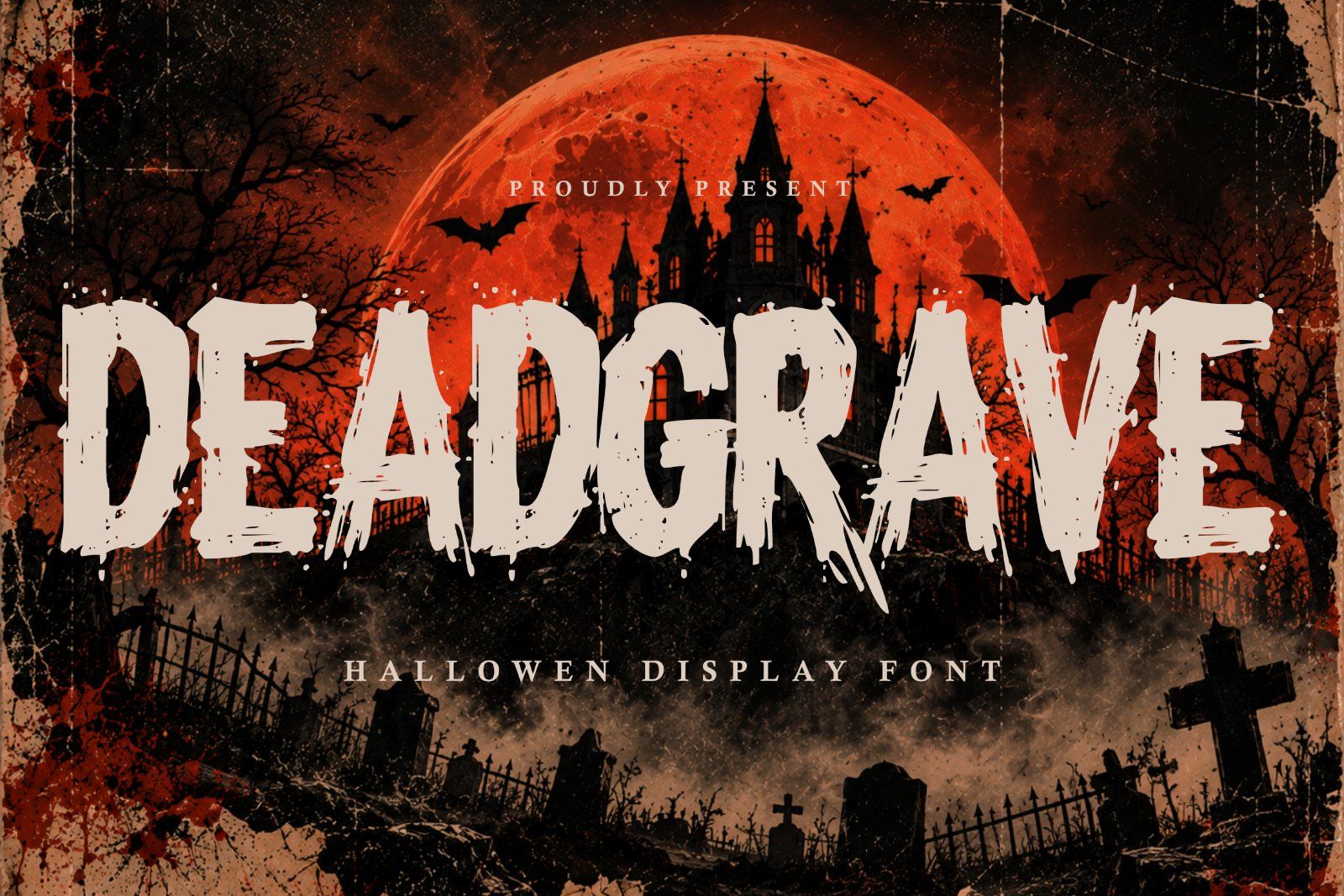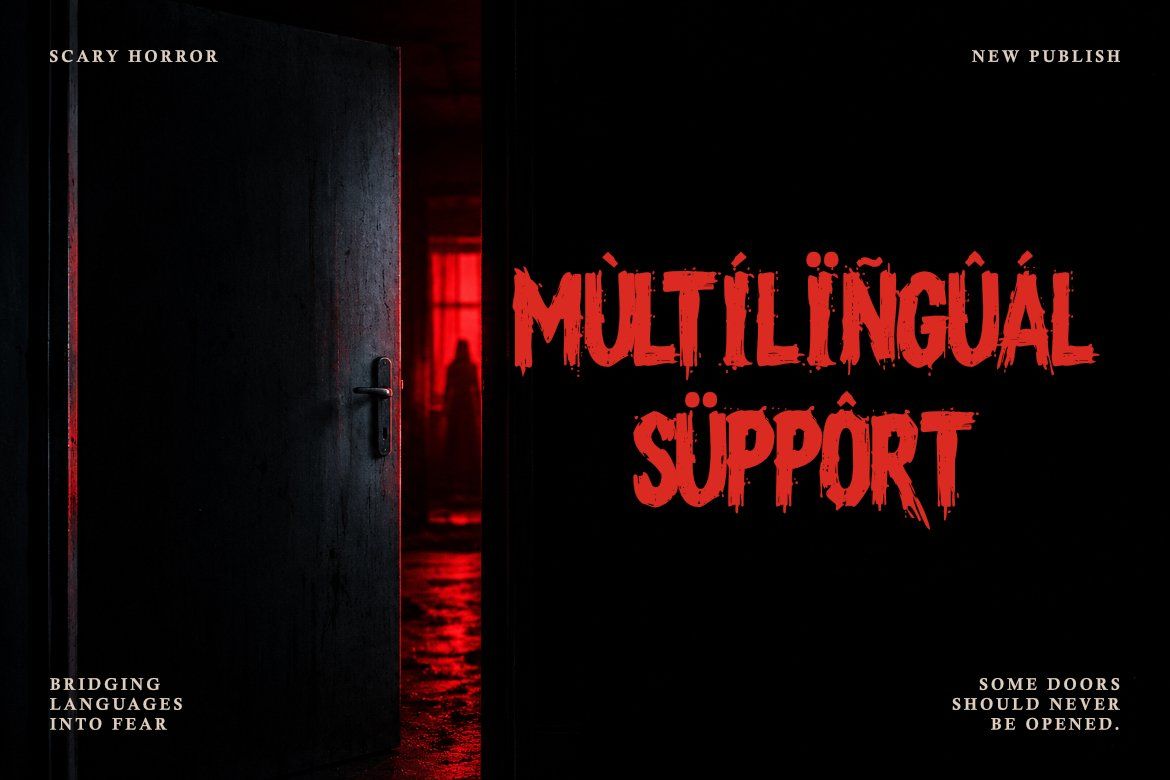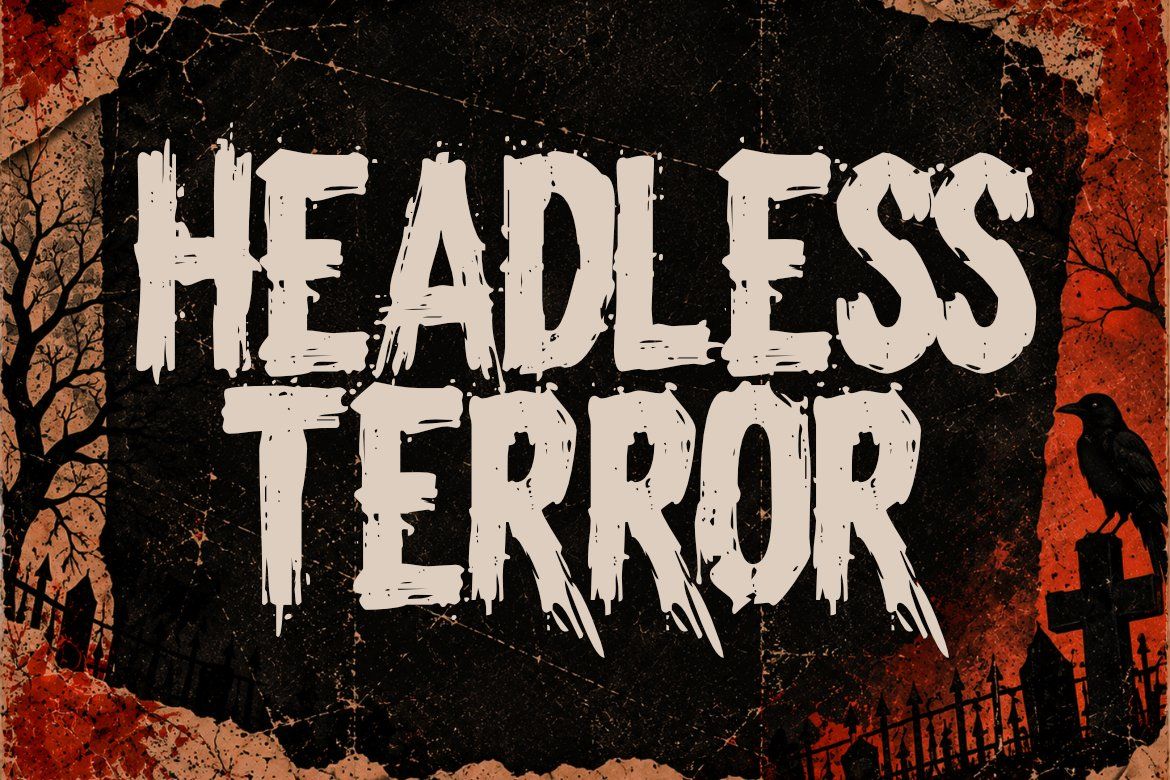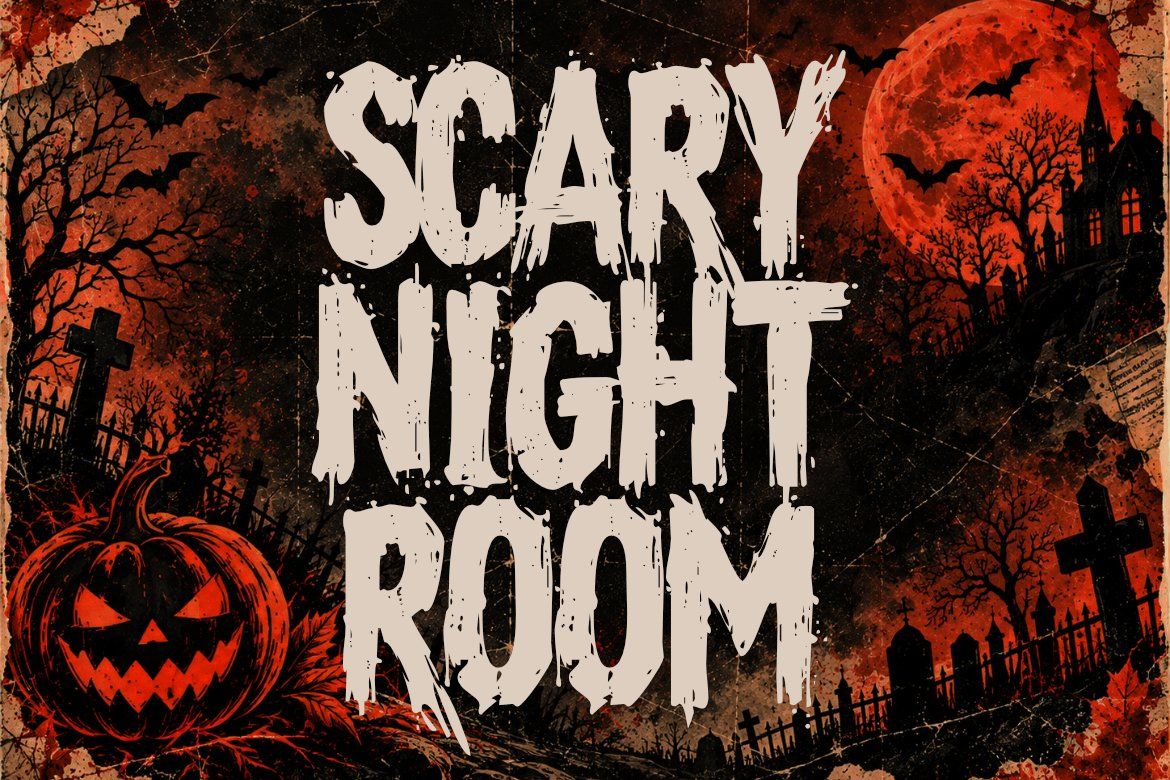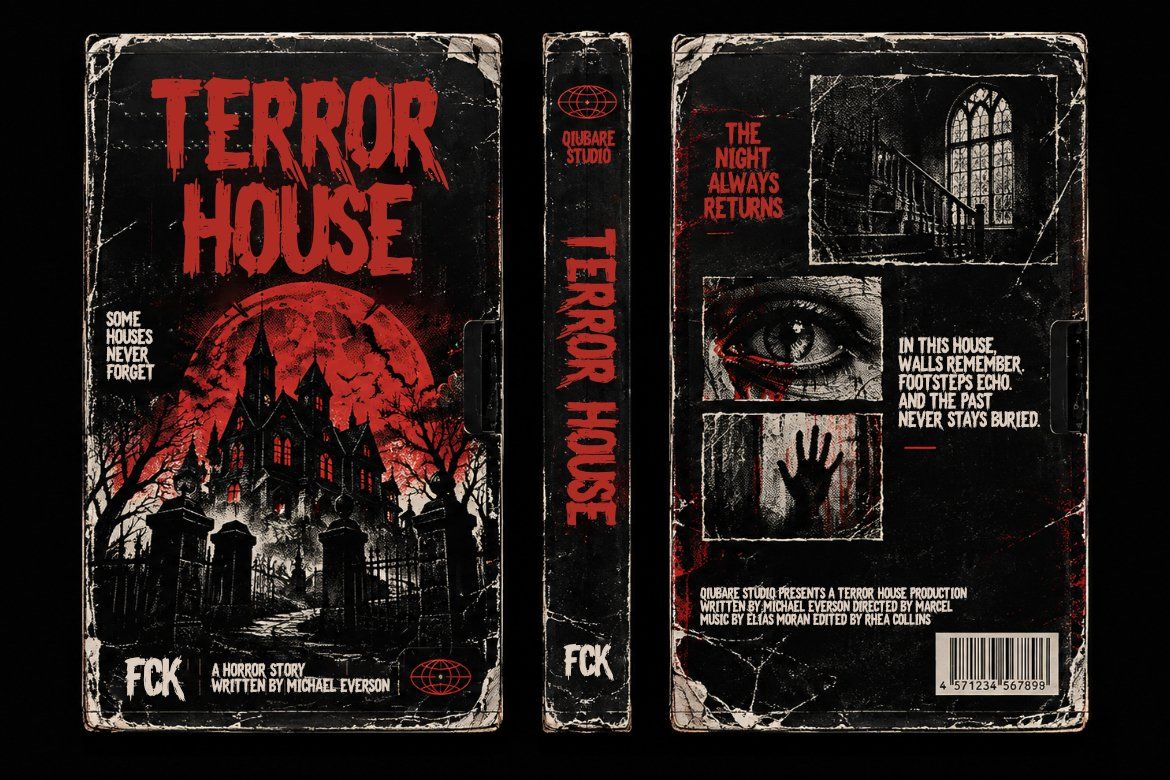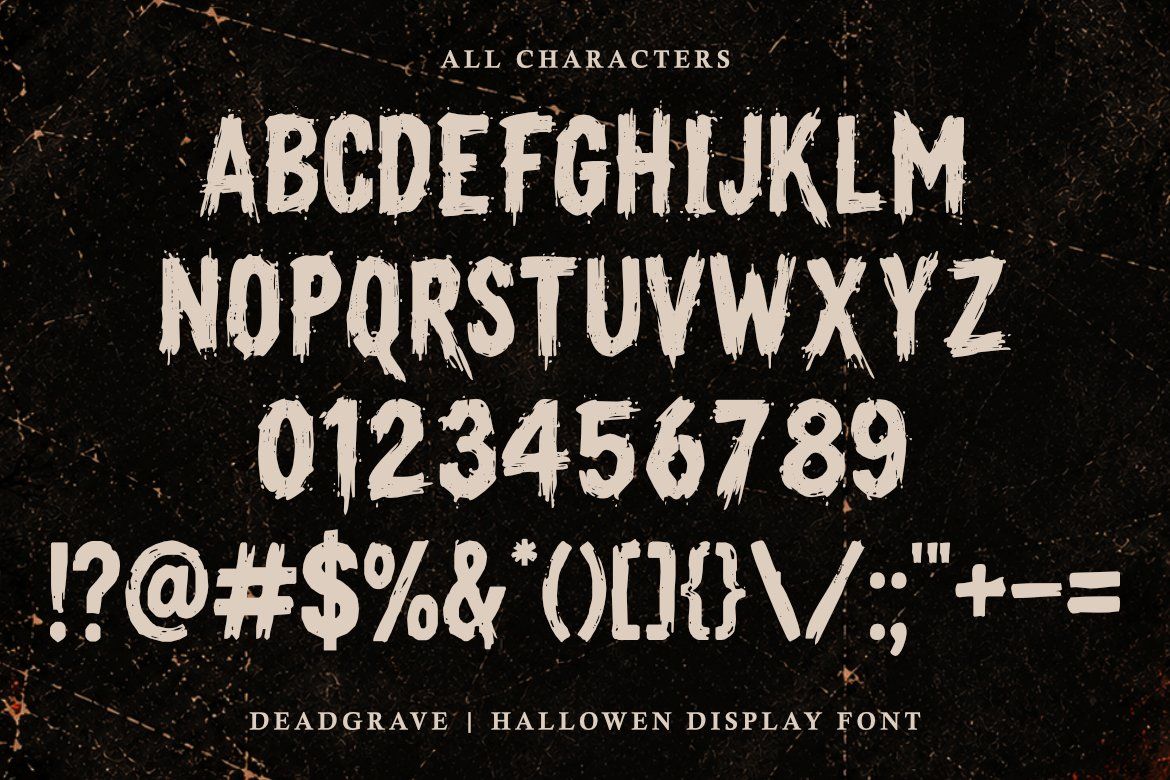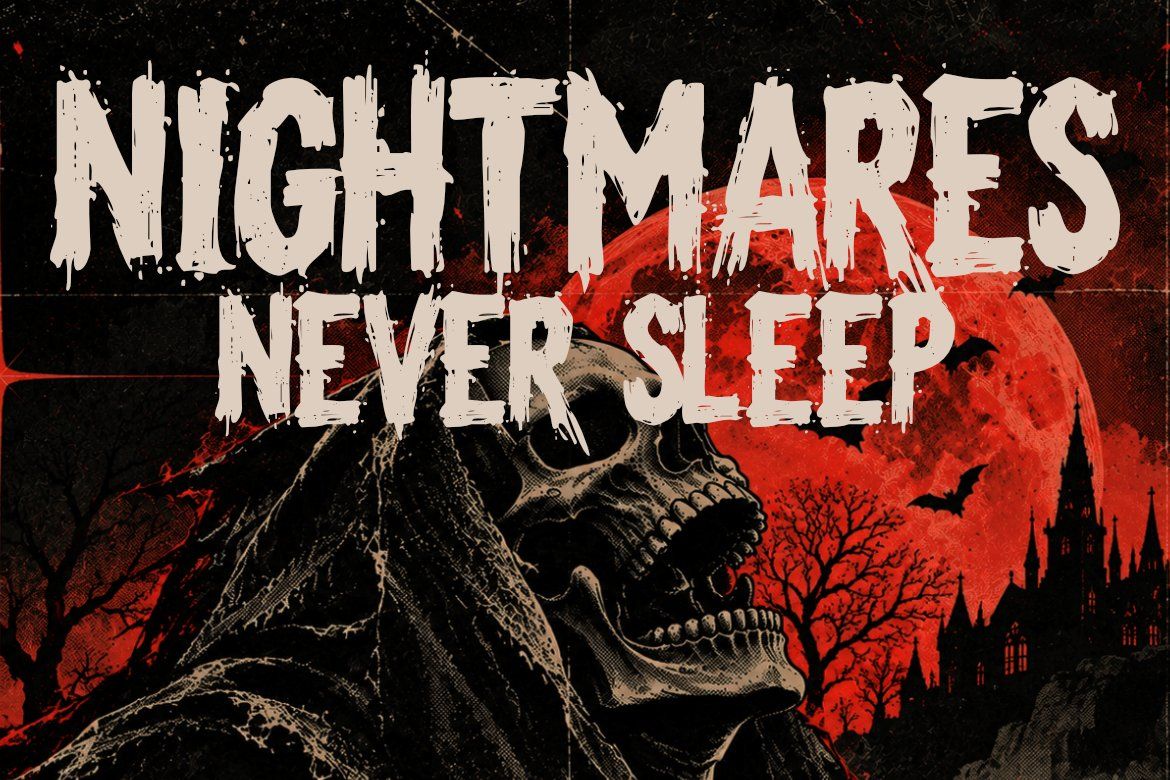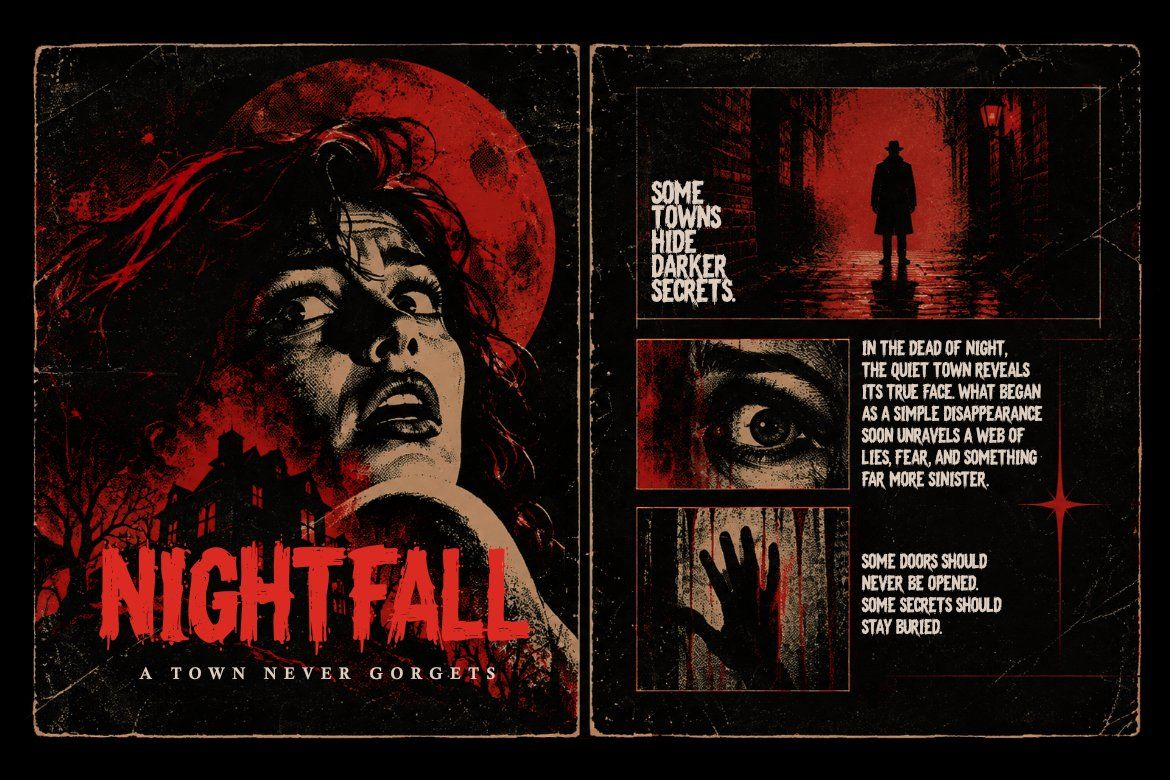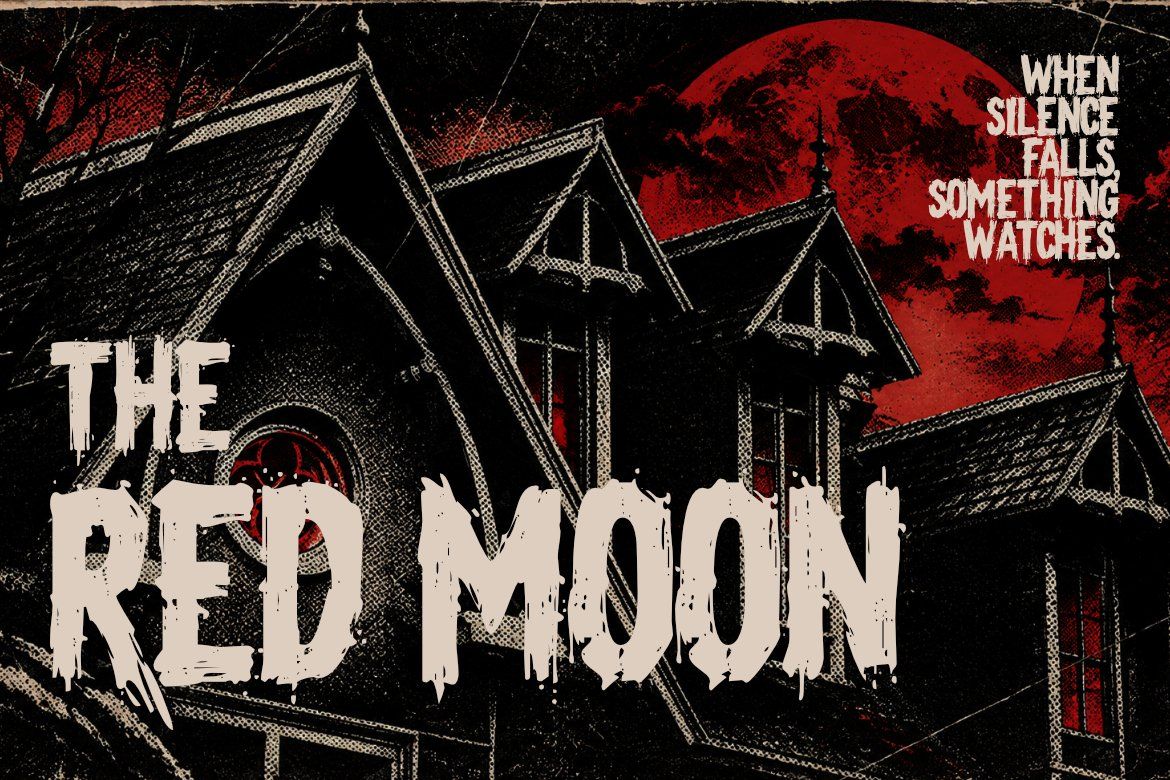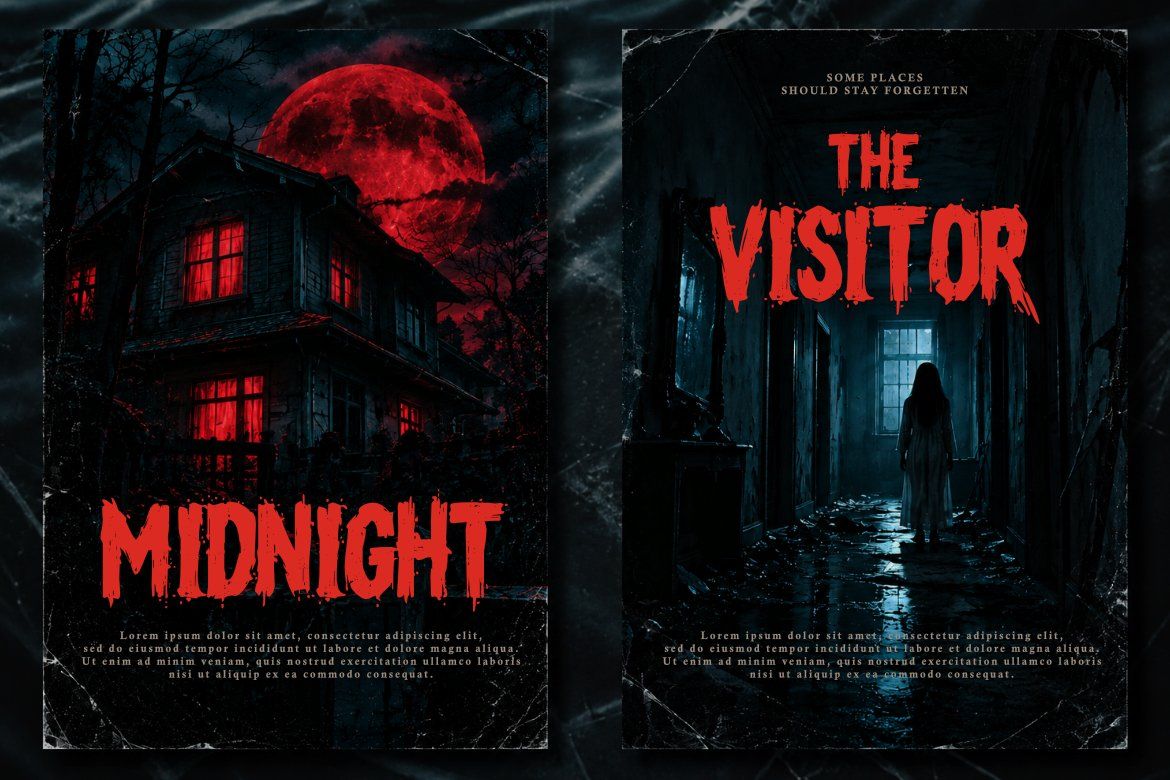
Horror font DEADGRAVE is a distressed display typeface with rough edges, irregular shapes, and a raw hand-painted character. Designed for Halloween graphics, horror posters, movie titles, merchandise, and dark display typography, it brings an unsettling atmosphere to bold creative projects.
Inspired by classic horror posters, haunted houses, Halloween nights, and vintage thriller graphics, DEADGRAVE combines distressed details with an intentionally rough grunge appearance. Its strong display character makes it especially effective when used large for titles, headlines, covers, posters, and merchandise.
Perfect For:
• Halloween designs
• Horror posters
• Horror movie titles
• Thriller covers
• Haunted house graphics
• Game titles
• Book covers
• T-shirt designs
• Merchandise
• Album covers
• Event posters
• Spooky branding
• Packaging
• Stickers
• Logos
• Editorial artwork
• Uppercase characters
• Lowercase characters
• Numbers and punctuation
• Symbols
• Distressed horror style
• Rough hand-painted appearance
• Strong display readability
DEADGRAVE works especially well for designs that need rough, dramatic typography rather than polished or minimal lettering. Use it to create Halloween artwork, horror-inspired branding, retro thriller graphics, dark merchandise, and attention-grabbing display titles.
Turn every word into a nightmare.